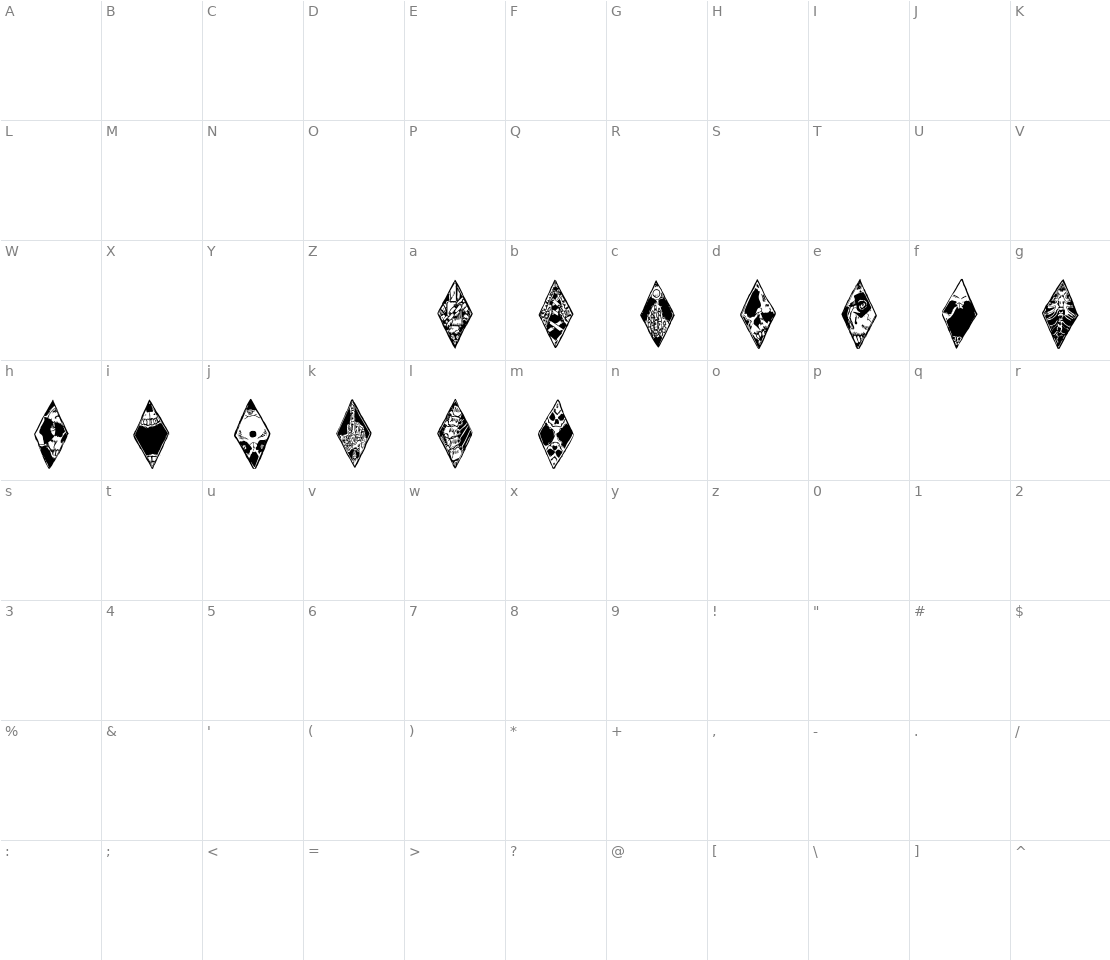
WW Wraith Bats
by White Wolf
WW Wraith Bats is a symbol font from White Wolf filled with gothic and horror-themed icons, the kind of small decorative elements you'd find scattered across a vampire RPG sourcebook or Halloween flyer. The glyphs lean dark and spooky, with diamond shapes and other gothic motifs that work as ornaments, dividers, or spot illustrations. Purely decorative, built to add atmosphere to dark-themed layouts rather than communicate through words.